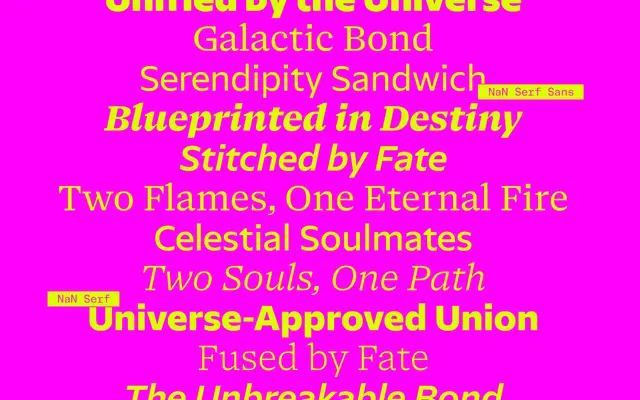
NaN Serf Sans
NaN · Hugues Gentile, Fadhl Haqq, Léon Hugues, Jean-Baptiste Morizot, Luke Prowse, Florian Runge · 2025
NaN Serf Sans specimen from NaN
A humanist sans derived from the NaN Serf skeleton, built for screen text across five scripts and more than 550 languages.
Sharing the underlying skeleton of NaN Serf, the design replaces serifs with clean vertical-cut endings and opens up the counters to prioritise rhythm and legibility at text sizes. Five scripts — Latin, Cyrillic, Arabic, Greek and Thai — are included from the outset, covering 482 Latin-based, 49 Cyrillic-based and 33 Arabic-based languages alongside Greek and Thai. Distinctive details such as the flat curves on the /G, /b and /q carry over from Serf, giving the family a consistent character across both subfamilies.
NaN describe it explicitly as a humanist sans derived from the NaN Serf skeleton, with vertically-cut stroke endings and generous counters optimised for text use on screen.